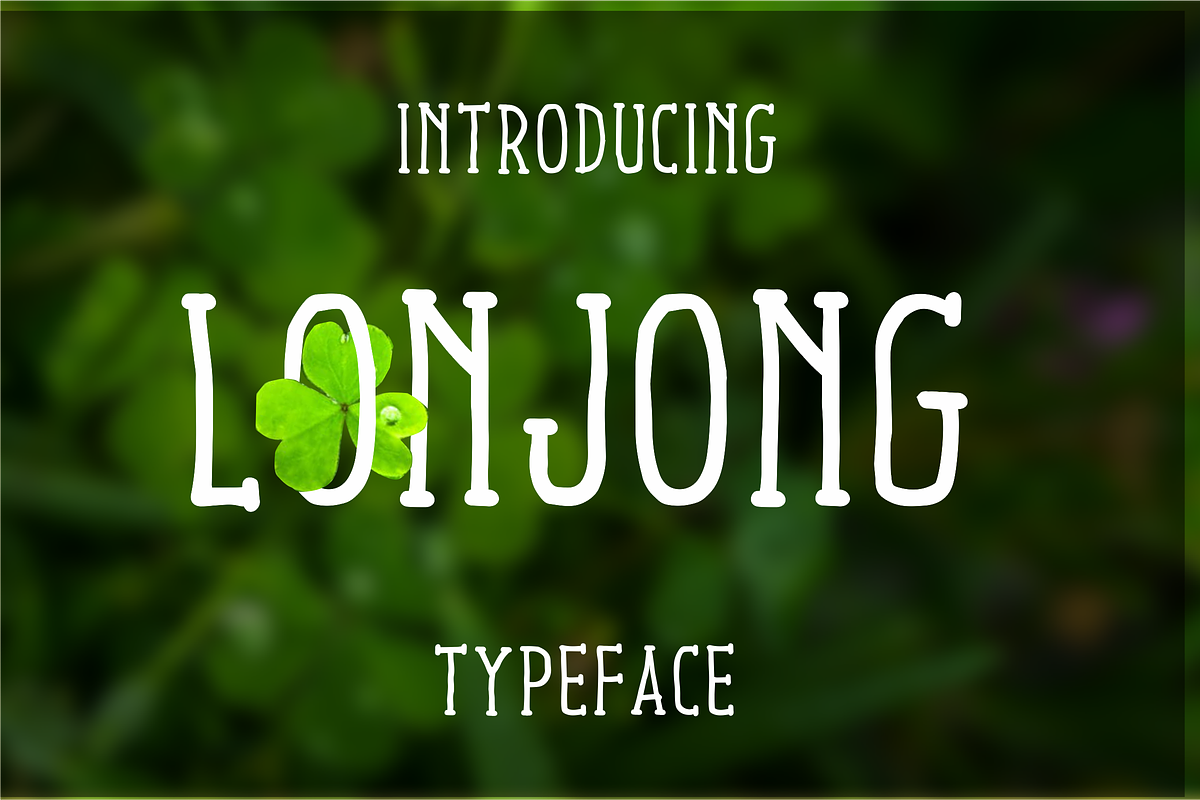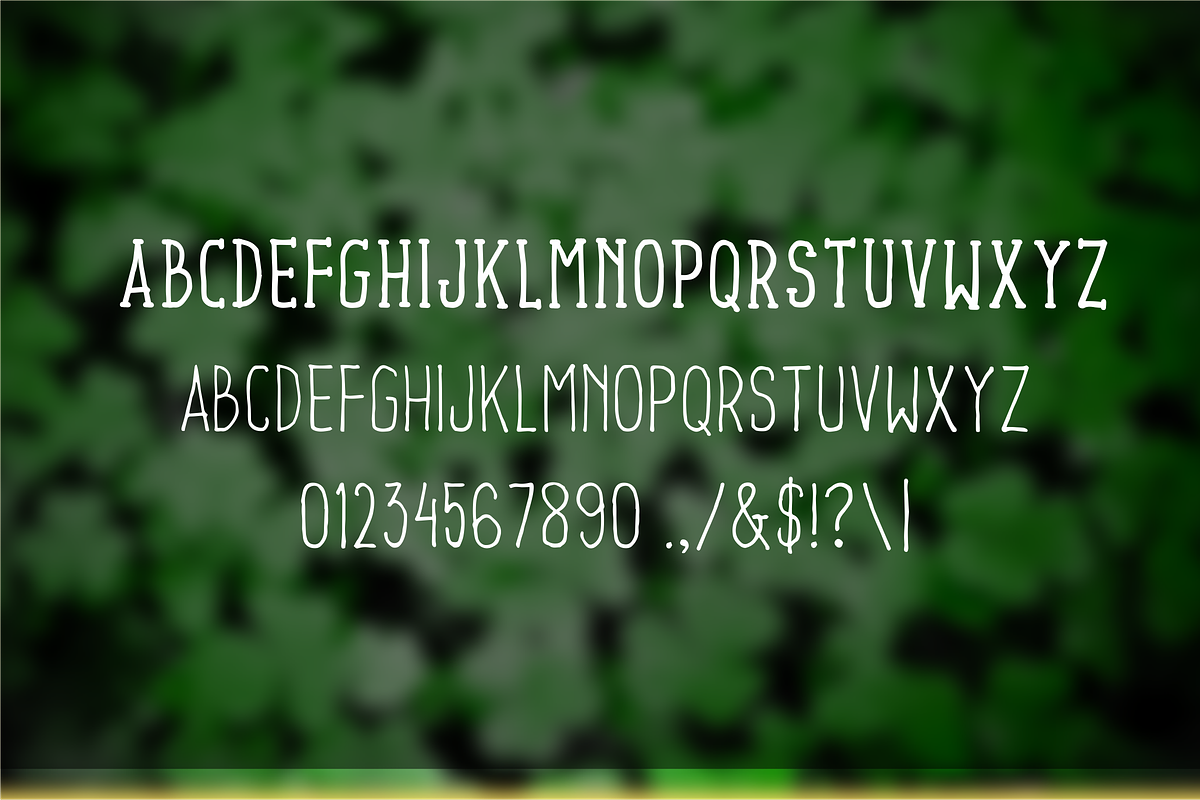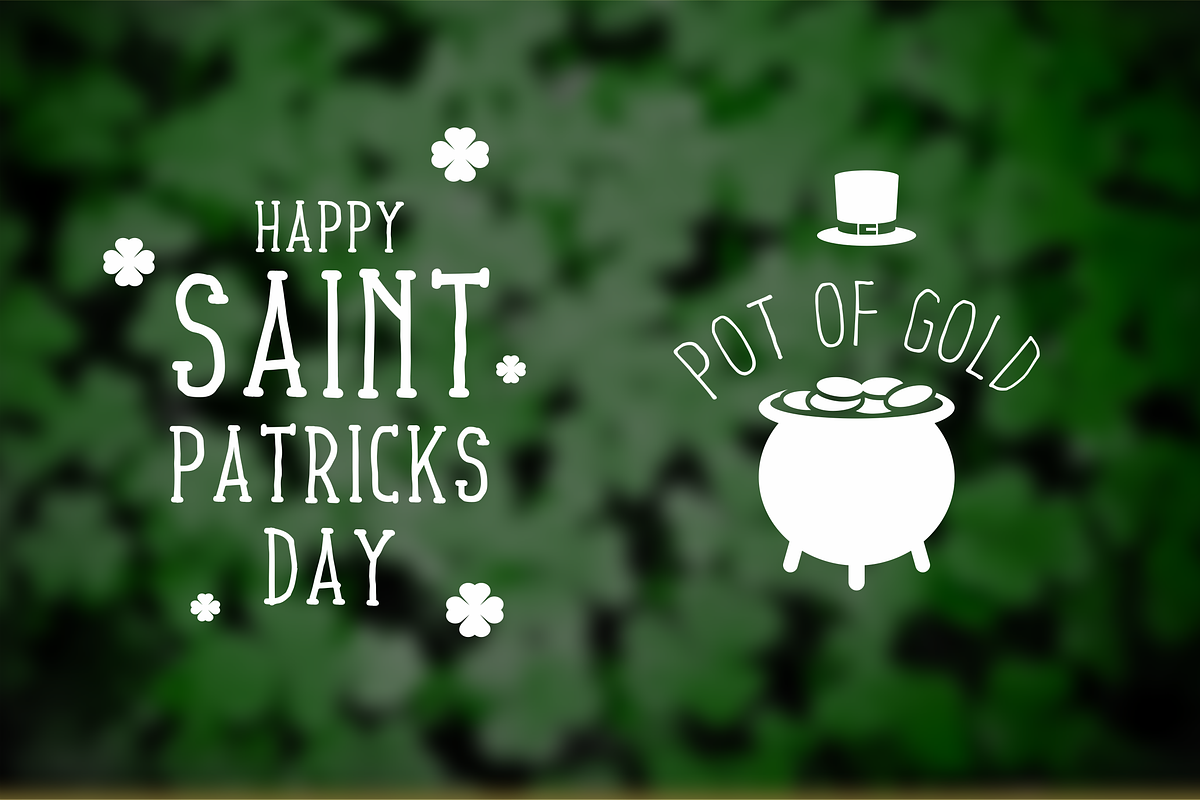
Lonjong Font
lonjong font created for celebrate your event. very useful for invitation,logo,greeting card,poster or other related project. files include:
Lonjong Font by Akdesain fits naturally into Branding, posters, packaging, typography.